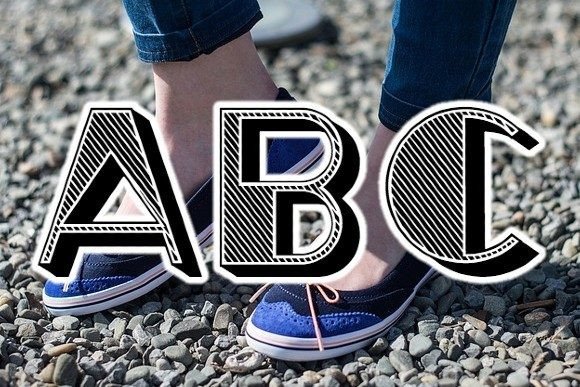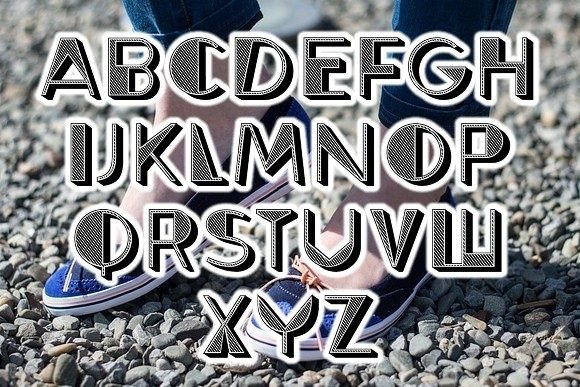
Introduction to Favorita Font
Have you ever been working on a creative project, pouring your heart and soul into it, only to be held back by the perfect font? That’s where the Favorita Font comes in – a stunning, elegant decorative typeface that will elevate your designs to the next level.
Imagine being able to add a touch of sophistication to your posters, flyers, and even shirts with just a few clicks. With the Favorita Font, you can achieve that and more. This high-quality design resource is perfect for designers looking to add a unique touch to their work.
Not only is the Favorita Font beautiful, but it’s also incredibly versatile. Whether you’re working on a project with a transparent background or need a font that will pop against any design element, the Favorita Font has got you covered. And the best part? It’s available for free download, making it an essential addition to any designer’s toolkit.
Key Features of Favorita Font
- High-quality design resource ideal for creative projects, offering a professional touch.
- Transparent background, allowing for seamless integration into design compositions.
- High-resolution font, suitable for print and digital applications, including web design and graphic design.
- Unique, modern design aesthetic, making it an excellent choice for contemporary creative projects.
- Perfect for designers seeking a versatile and stylish font for their design resource library.
Honest Review: Favorita Font
As a designer, I’m always on the lookout for high-quality design resources that can elevate my creative projects. Recently, I came across the Favorita Font, and I must say, it’s been a game-changer for me.
- ✨ Elegant and sophisticated design that adds a touch of class to any project.
- ✨ Wide range of font styles and sizes, making it perfect for various creative projects.
One of the standout features of the Favorita Font is its ability to work well with transparent backgrounds, allowing for seamless integration with other design elements.
While the Favorita Font is an excellent addition to any designer’s toolkit, there are a few limitations to keep in mind:
- ⚠️ Not suitable for very large-scale projects, as it may become difficult to manage.
Overall, I’m thoroughly impressed with the Favorita Font, and I would highly recommend it to any designer looking for a high-quality, versatile font that can elevate their creative projects.
Tips for Getting the Most Out of Favorita Font
Experiment with different font sizes and styles to add visual interest to your design. Use Favorita Font in combination with other design elements, such as images and shapes, to create a unique and eye-catching look.
Common Use Cases for Favorita Font
Favorita Font is perfect for a variety of creative projects, including logos, business cards, brochures, and social media graphics. Its high-quality design and transparent background make it a great choice for any project that requires a stylish and professional touch.
Is the Favorita Font suitable for use on transparent backgrounds?
Yes, the Favorita Font has a transparent background, making it ideal for use on transparent or semi-transparent backgrounds. This is particularly useful for designers working on creative projects that require a high level of design flexibility.